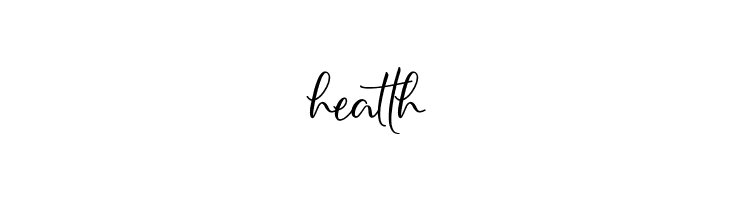
A lively, expressive handwritten font with dynamic strokes and artistic flair.
A fluid and elegant script font with a handwritten appearance.
A playful and elegant handwritten font with fluid, cursive letterforms.
A fluid and elegant script font with a handwritten style.
A playful and whimsical script font with flowing, interconnected letters.
A graceful script font with elegant loops and swashes, perfect for decorative use.
A whimsical, cursive font with flowing, interconnected strokes.